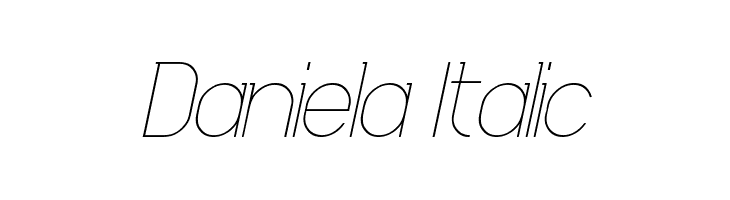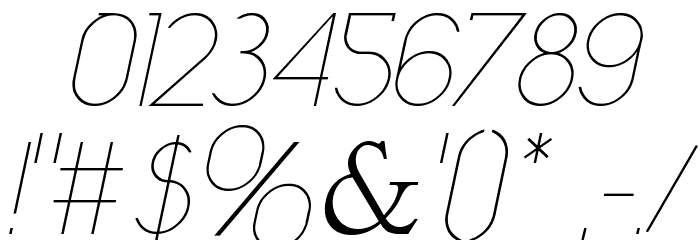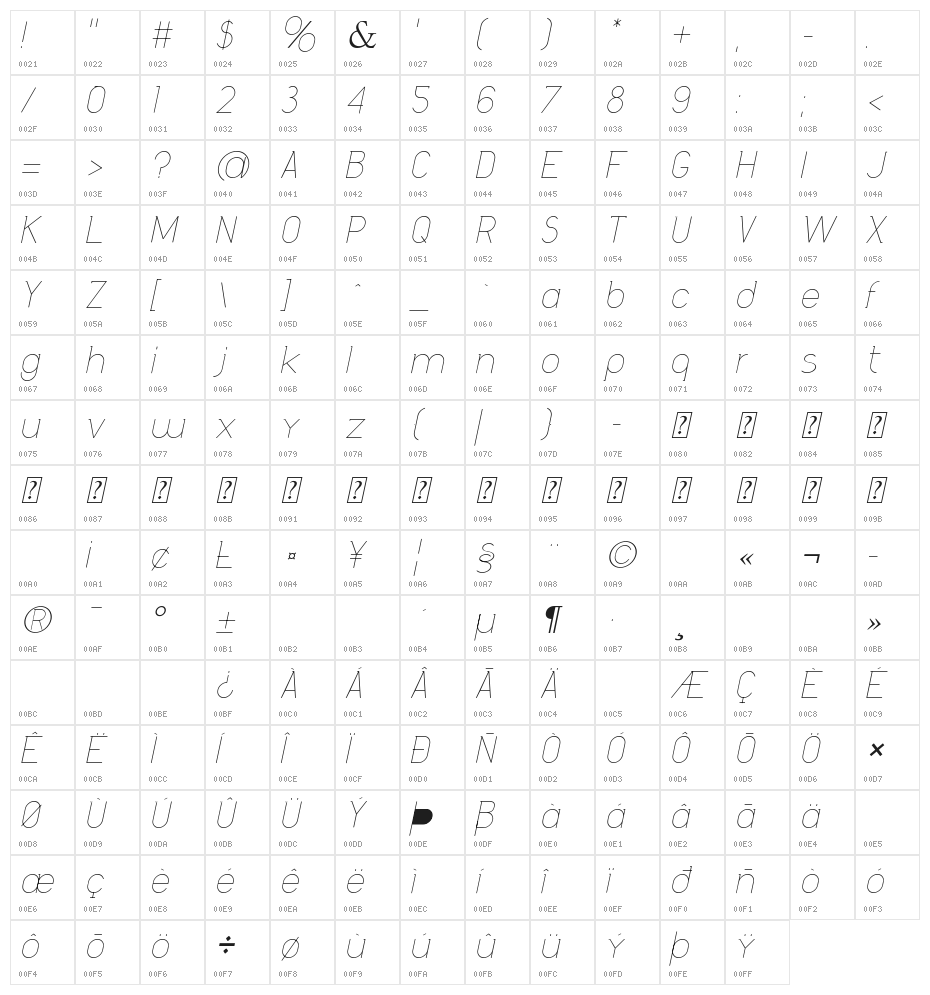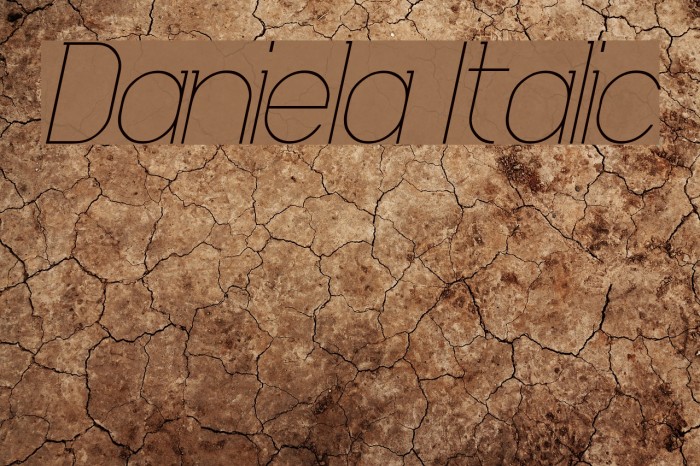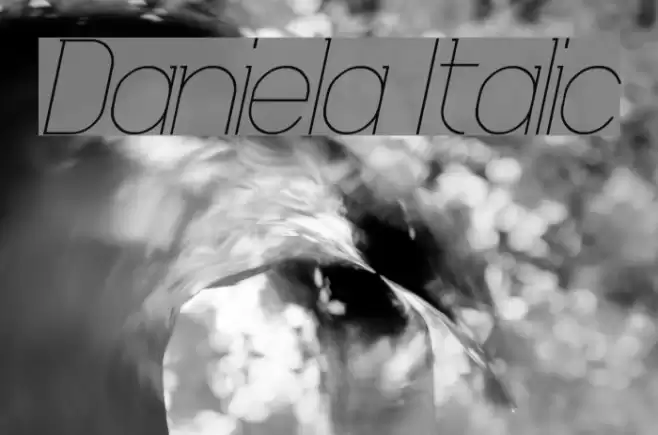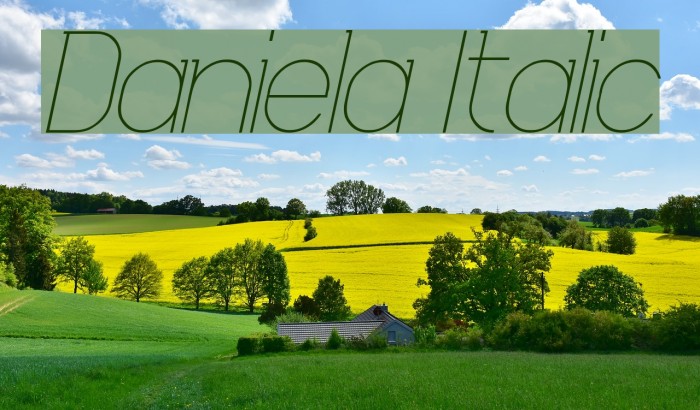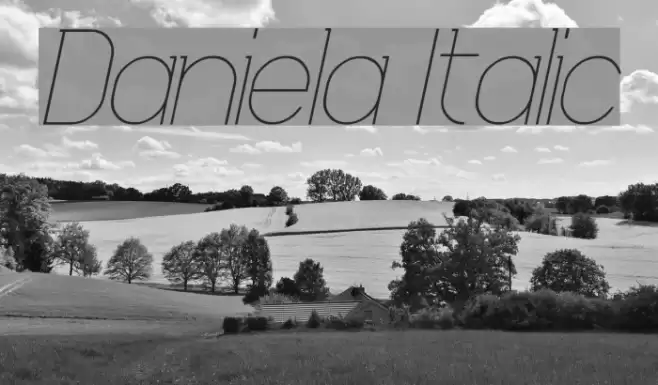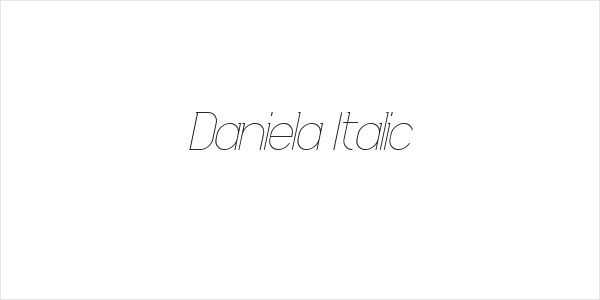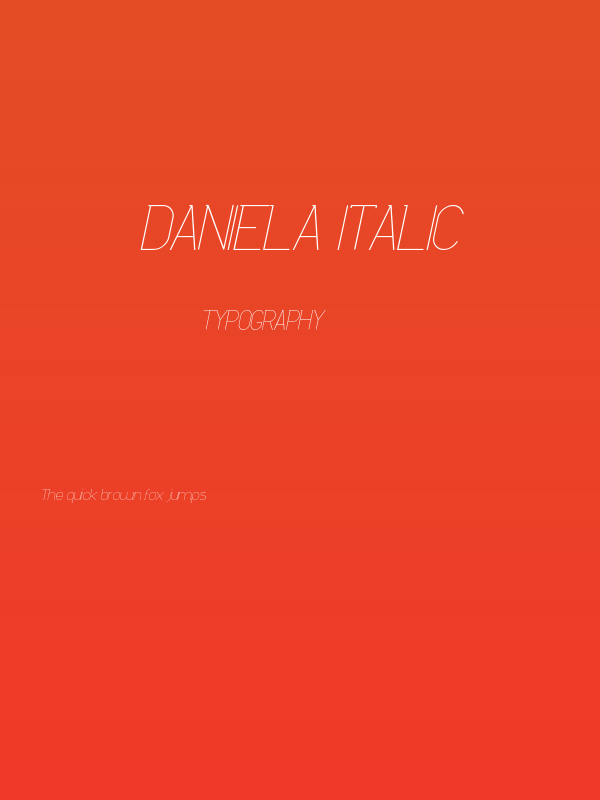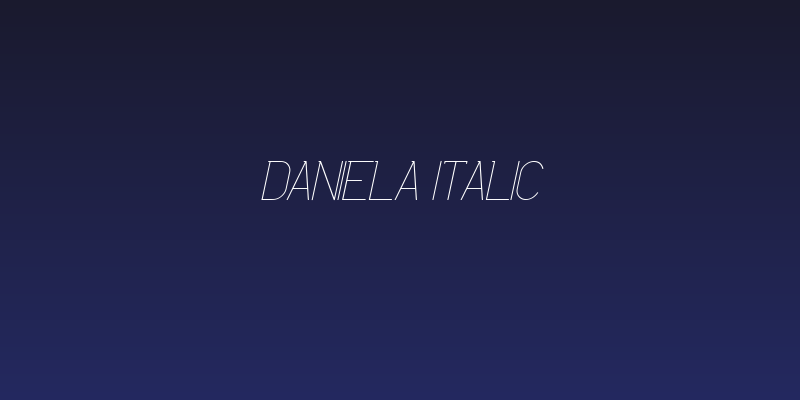
Daniela Italic Font
Daniela Italic Description
This font features a sleek and elegant italic style, characterized by its thin and elongated letterforms. The strokes are consistently narrow, giving it a refined and sophisticated appearance. The slant of the letters adds a dynamic and fluid feel, making it ideal for projects that require a touch of elegance and modernity. The font maintains a uniform stroke width throughout, contributing to its clean and minimalist aesthetic. Its design is both contemporary and versatile, suitable for a variety of applications where a stylish and polished look is desired.
| Proposed Projects | Ideal for fashion magazines, luxury branding, elegant invitations, and modern website headers. |